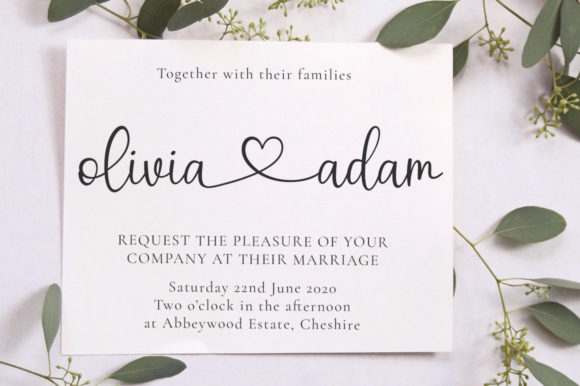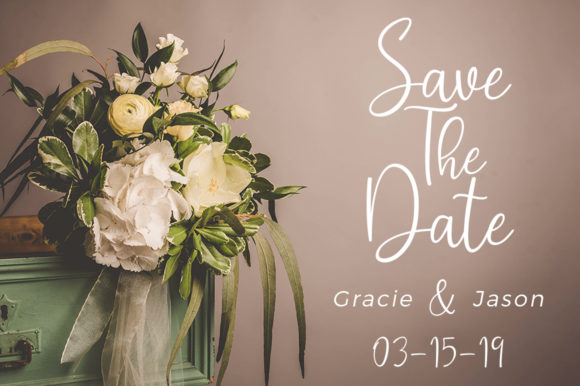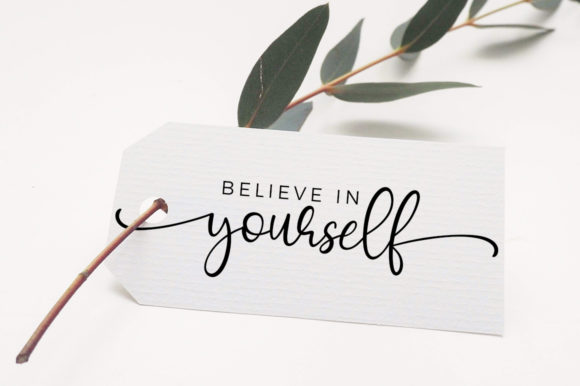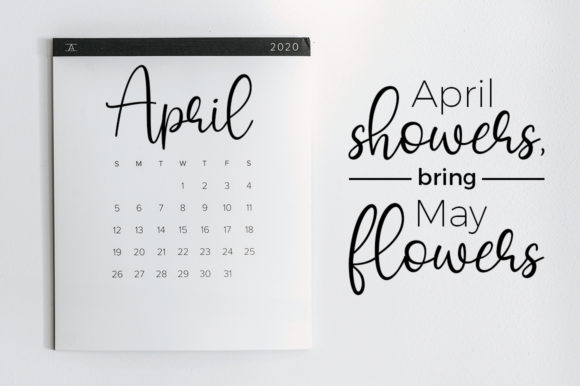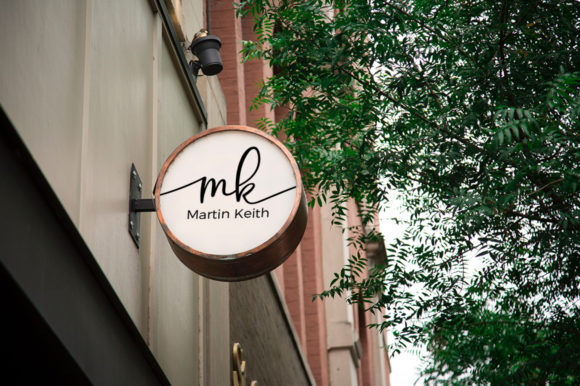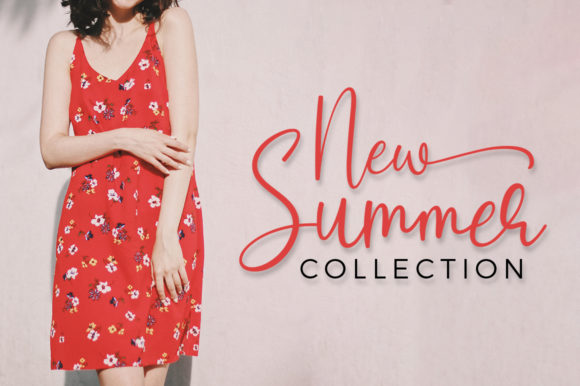
Introduction to Shmoopie Font
Do you remember the moment when you stumbled upon the perfect design resource for your creative project? The one that made your heart skip a beat and your imagination run wild? For many designers, that moment comes when they discover a high-quality font that perfectly captures the essence of their vision. And for those who have fallen in love with calligraphy and handwritten scripts, the Shmoopie Font is sure to be that elusive treasure.
This delicate and romantic handwritten font is more than just a pretty face – it’s a versatile design tool that can elevate any project from beautiful stationery art to eye-catching social media posts. With its PUA-encoded glyphs and swashes, you can create stunning designs with ease, whether you’re working on a wedding invitation or a personal blog post.
As a valuable addition to any designer’s toolkit, the Shmoopie Font offers a transparent background that allows for seamless integration with your favorite design software, making it the perfect resource for creative projects that demand high-quality results.
Key Features of Shmoopie Font
- High-quality font: This font boasts a high-quality design, suitable for a wide range of applications, from digital to print media.
- Transparent background: The Shmoopie Font features a transparent background, allowing for seamless integration with various design elements.
- Large character set: The Shmoopie Font includes a wide range of characters, including uppercase and lowercase letters, numbers, and punctuation marks.
- Resolution-independent: This font is designed to be resolution-independent, ensuring it looks great at various resolutions and screen sizes.
- Perfect for creative projects: The Shmoopie Font is an ideal design resource for creative projects, such as graphic design, typography, and branding.
Honest Review: Shmoopie Font
I recently came across the Shmoopie Font and I must say, it’s a delightful addition to any designer’s toolkit. This free download is perfect for designers working on creative projects that require a playful touch. One of the standout features of the Shmoopie Font is its transparent background, which makes it easy to layer and customize.
- High quality design: The Shmoopie Font is beautifully crafted and has a unique, whimsical feel to it.
- Flexibility: The font’s transparent background makes it easy to use in a variety of creative projects.
- Limited character set: The Shmoopie Font may not include a full range of characters, which could be a problem for designers working on complex projects.
Overall, the Shmoopie Font is a great design resource for designers working on creative projects. While it has its limitations, its unique design and free download make it an excellent choice for designers on a budget.
Design Resource and Tips
Shmoopie Font is a free download and a valuable design resource for any creative project. To get the most out of it, use it in conjunction with other design elements, such as images and graphics. You can also experiment with different font sizes, colors, and alignments to create a unique and eye-catching design. With Shmoopie Font, the possibilities are endless!
Shmoopie Font is commonly used in creative projects, such as posters, flyers, and social media graphics. It’s also a great choice for presentations, documents, and websites that require a high-quality and professional font. The transparent background feature of Shmoopie Font makes it ideal for designs that require a clean and modern look.
Can I use the Shmoopie Font for digital projects, such as mobile apps and websites?
Yes, the Shmoopie Font is optimized for digital use and can be easily integrated into your mobile app, website, or other digital project. The font’s transparent background makes it perfect for overlaying on images or using as a text overlay.